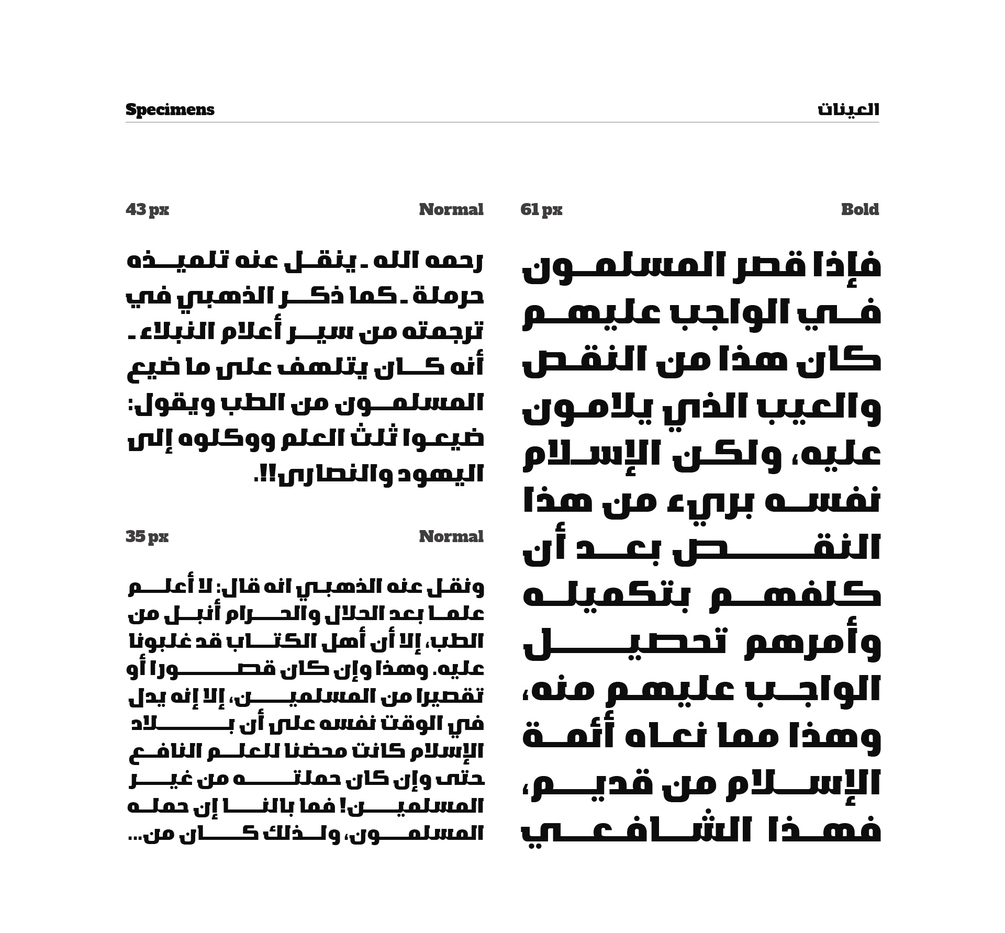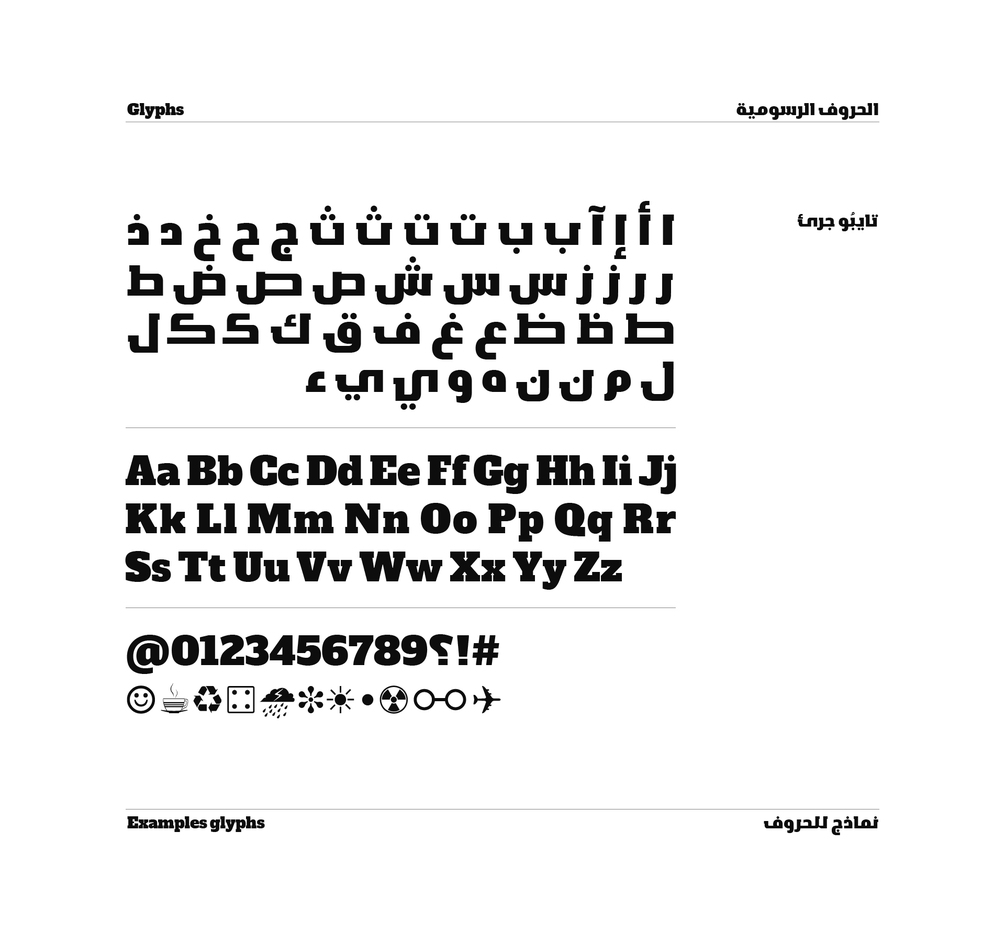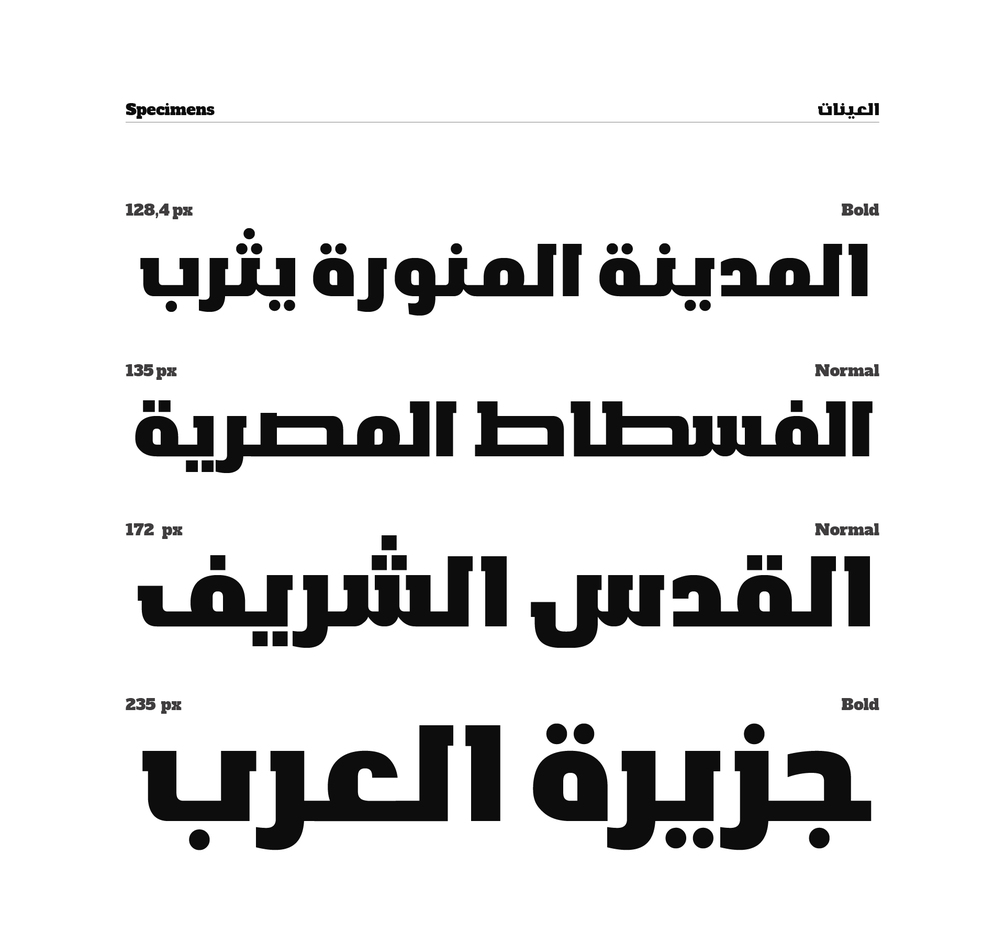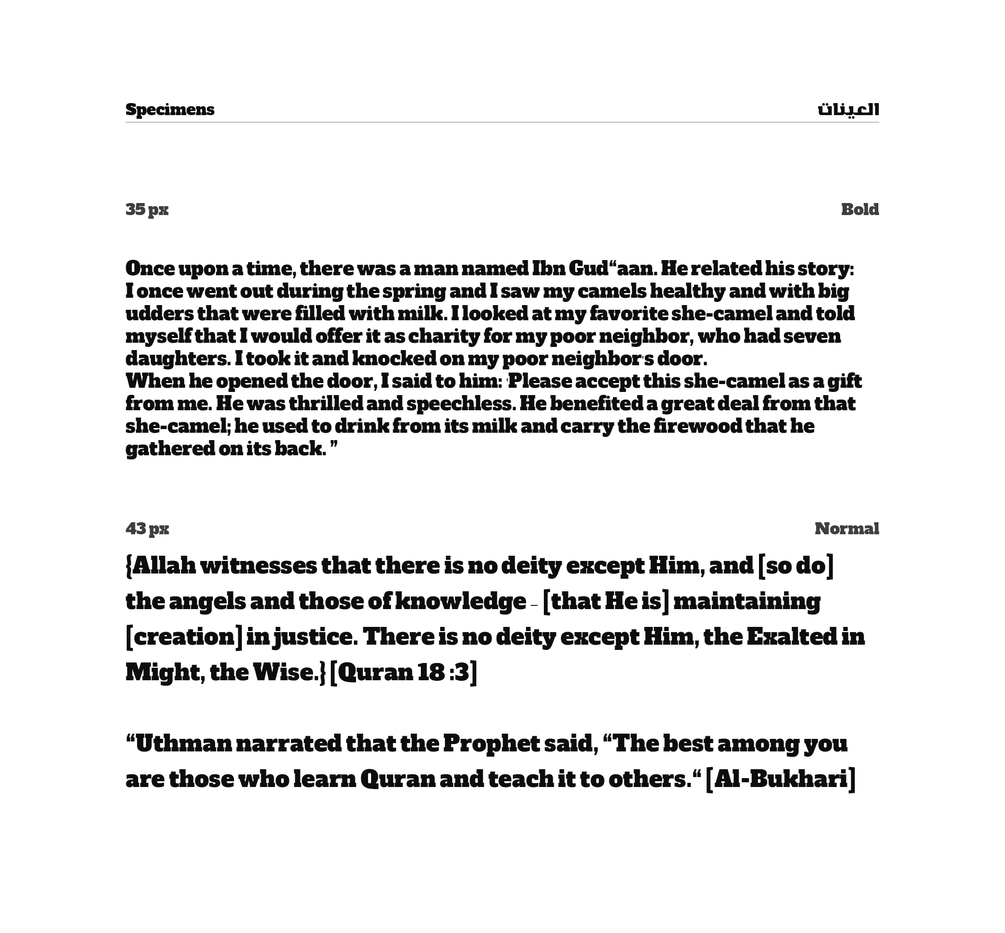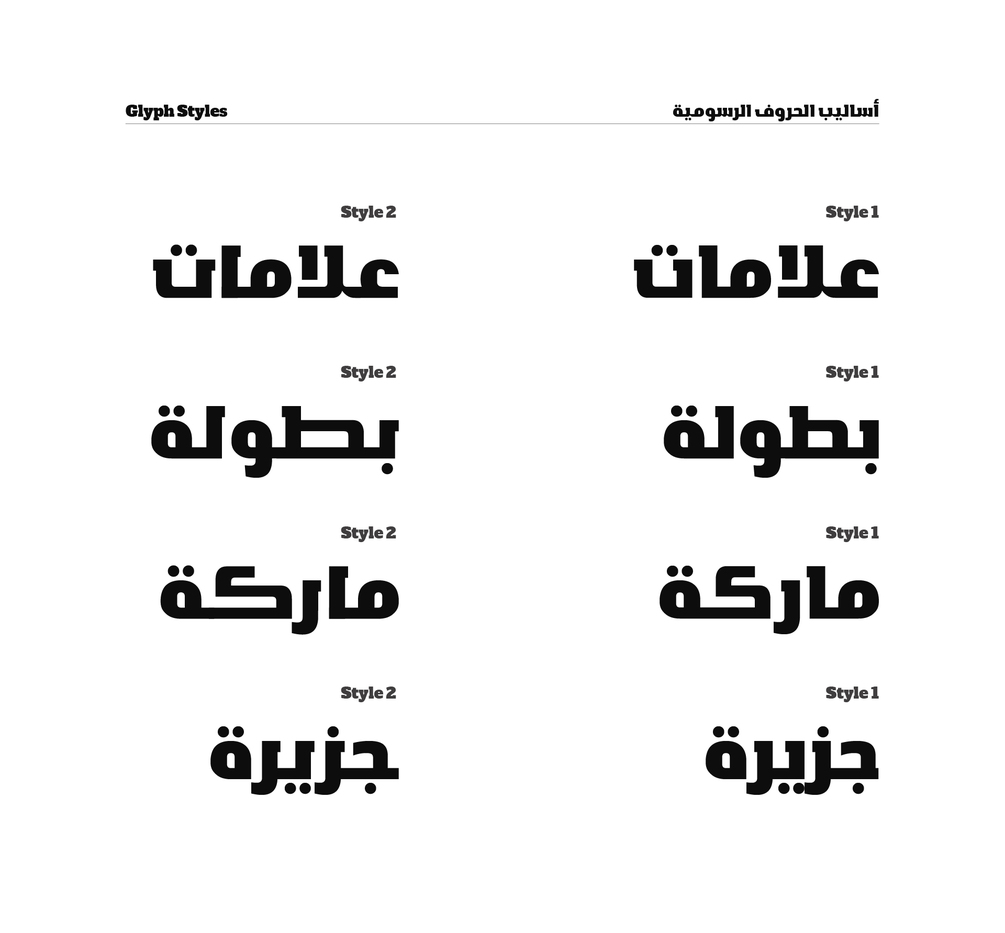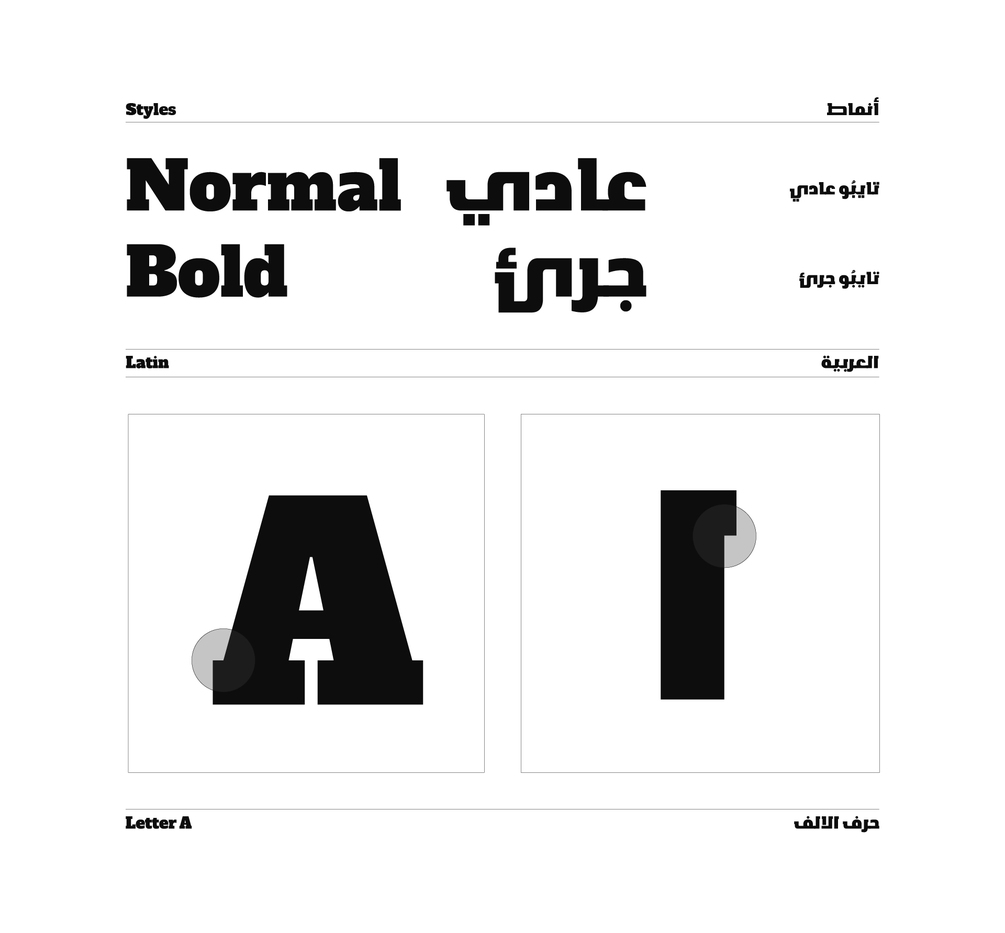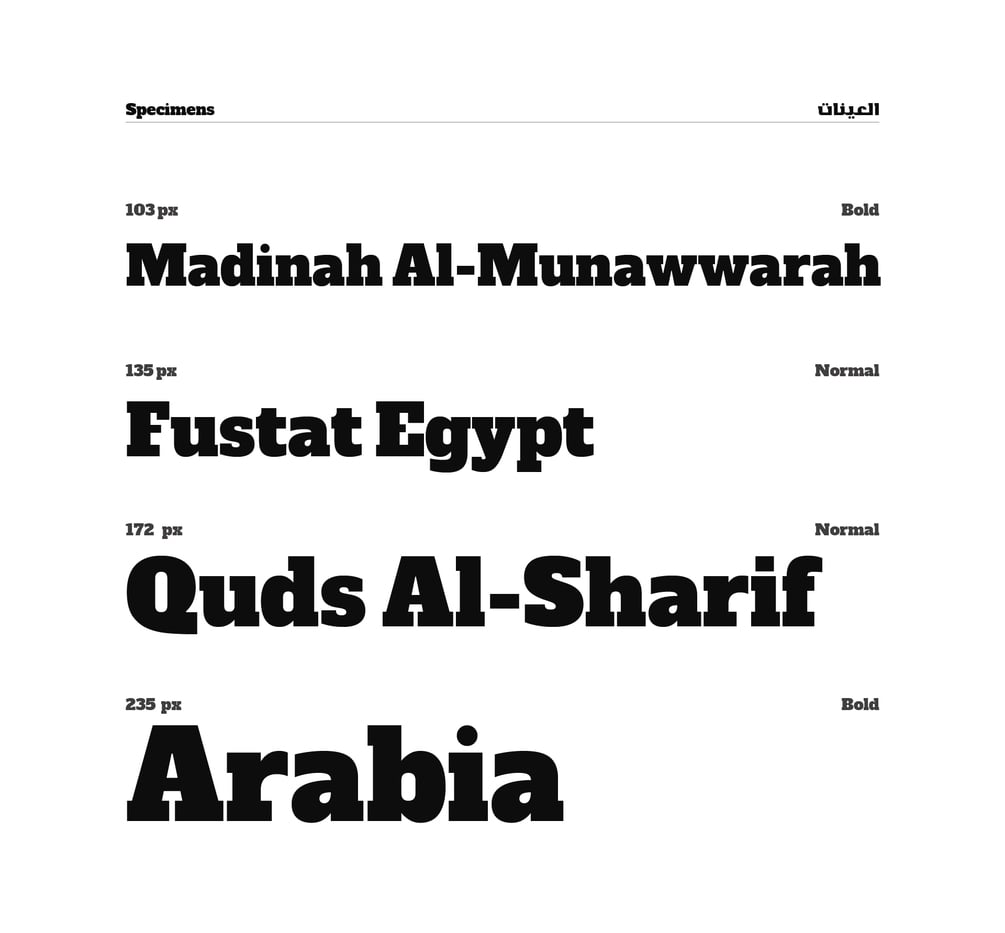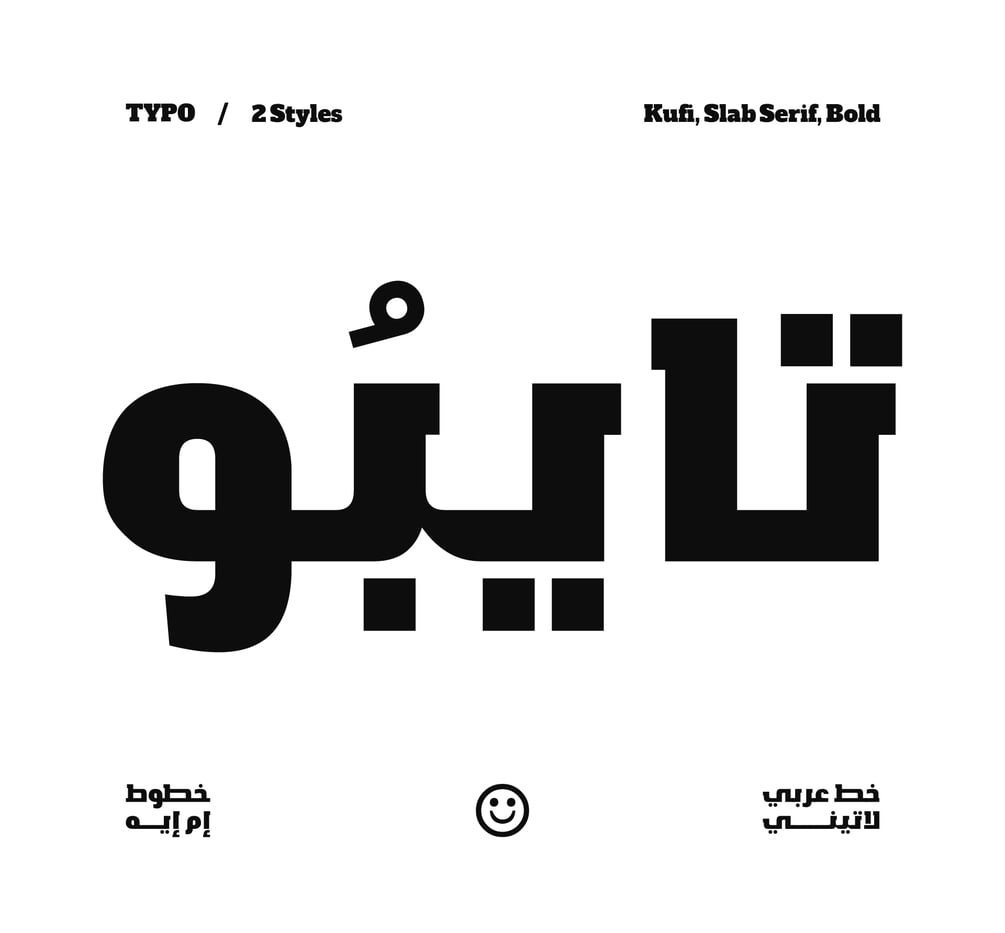
TYPO / 2 Styles / Arabic & Latin
TYPO is a unique Arabic and Latin typeface that seamlessly blends contemporary Kufic Arabic letters with distinctive SLAP SERIF Latin characters. It offers a bold and normal-bold weight, providing a versatile range.